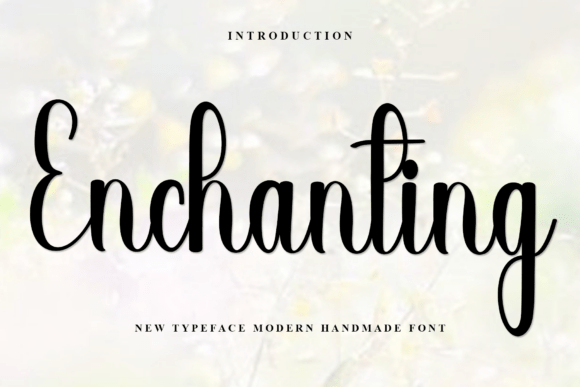
Cast a Spell of Sophistication with Enchanting Font
As you sit at your desk, staring at a blank page or screen, the pressure to create something truly special can be overwhelming. You know exactly what you want to convey – the essence of your brand, the magic of your story – but the words just won’t come together. That’s where the Enchanting Font comes in, a modern handmade typeface designed to capture the rhythm of natural calligraphy and transport your audience to a world of elegance and refinement.
Whether you’re crafting luxury branding, wedding stationery, or artisanal labels, the Enchanting Font is the perfect tool to bring your vision to life. Its unique blend of intimacy and professionalism makes it an exceptional choice for designers seeking to add a touch of sophistication to their work.
Key Features of Enchanting Font
- Font Family: Enchanting Font comes in three font families – Enchanting Script, Enchanting Sans, and Enchanting Serif.
- Character Set: Includes a wide range of characters, including uppercase and lowercase letters, numbers, punctuation marks, and special characters.
- Unique Characteristics: Features elegant, whimsical, and romantic design elements, making it perfect for wedding invitations, greeting cards, and other special occasions.
Designer Review: Enchanting Font
Overall, I was quite impressed with the Enchanting Font. ✨ Its whimsical, hand-drawn feel adds a touch of magic to any project. The font is perfect for designs that need a bit of romance or fantasy.
The Enchanting Font has a wide range of styles, from elegant cursive scripts to bold, playful lettering. This versatility makes it easy to use in various design applications, from invitations to book covers.
The font’s unique charm is one of its strongest assets. ✨ It’s great for adding a personal touch to designs and setting them apart from more generic fonts.
- Whimsical, hand-drawn feel adds a touch of magic to designs
- Wide range of styles to suit various design applications
- Perfect for adding a personal touch to designs
- May not be suitable for professional or corporate designs
- Lack of consistency in some letterforms and spacing
- Not ideal for small font sizes
- ⚠️ Some characters may be difficult to read at certain angles or sizes
The Enchanting Font is a unique and charming addition to any design library. While it may have some limitations, its versatility and whimsical feel make it a great choice for designers looking to add a touch of magic to their projects.
The Enchanting Font is perfect for:
- Editorial and publishing
- Event promotion and marketing